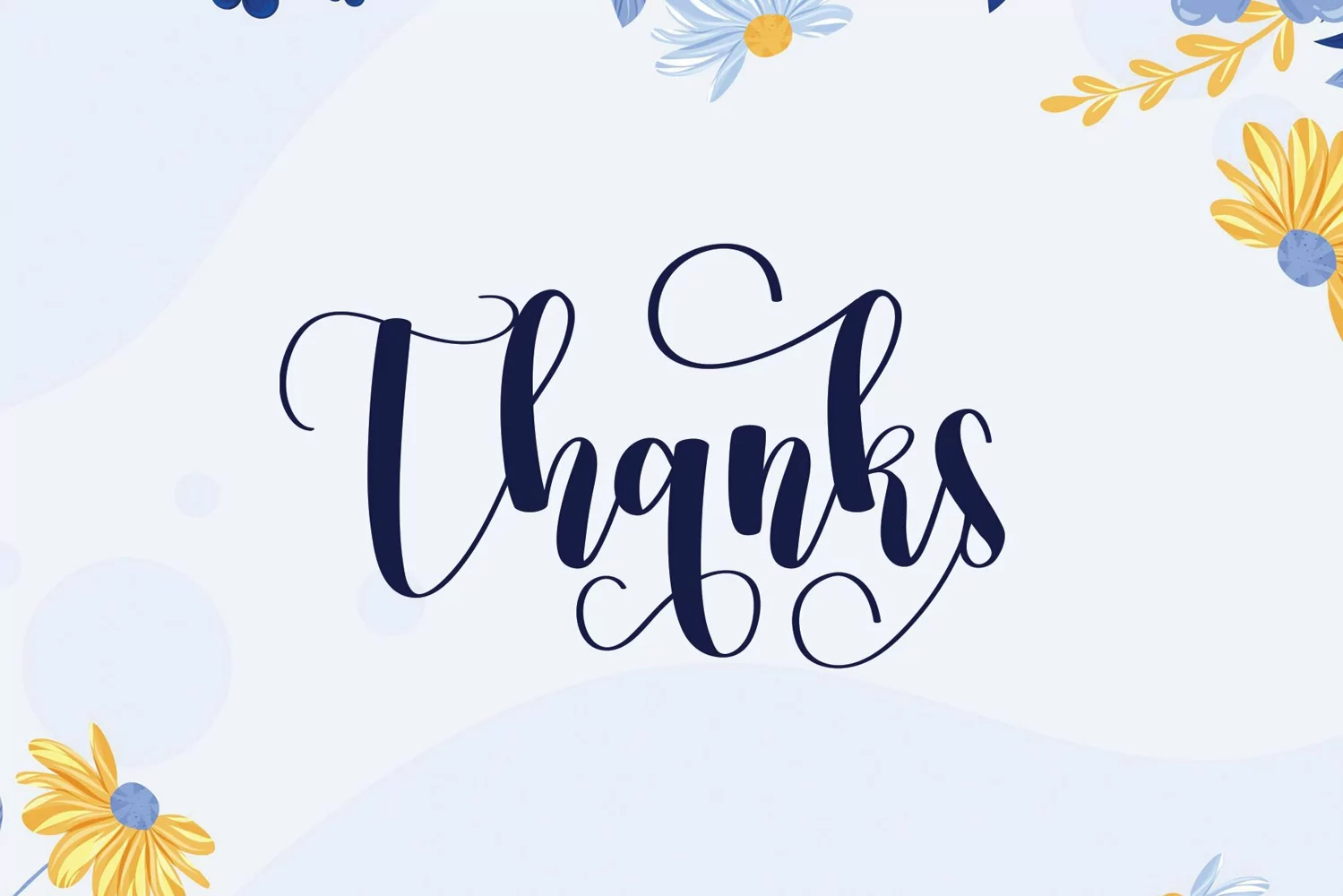
Handmade Mandala | Script font
Handmade Mandala Font is a popular and professional script font. It is Modern and elegant, this typeface is made of beautiful, creative strokes.